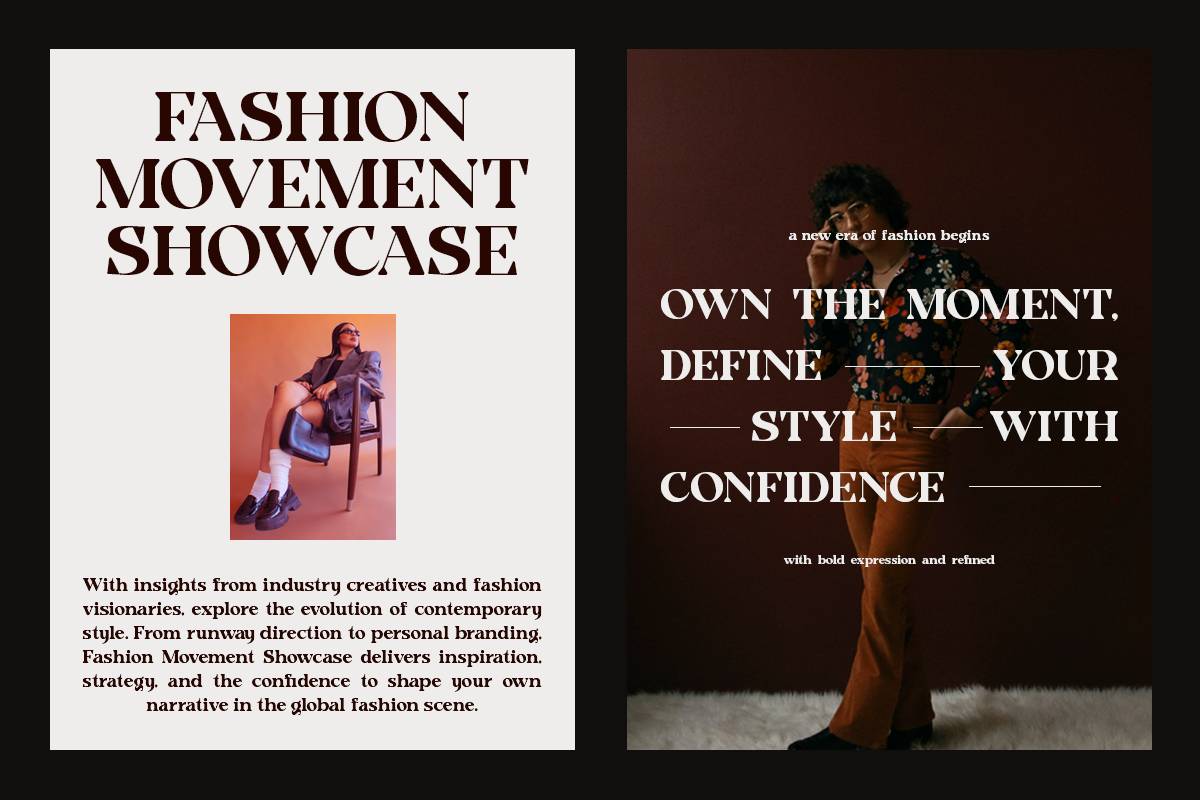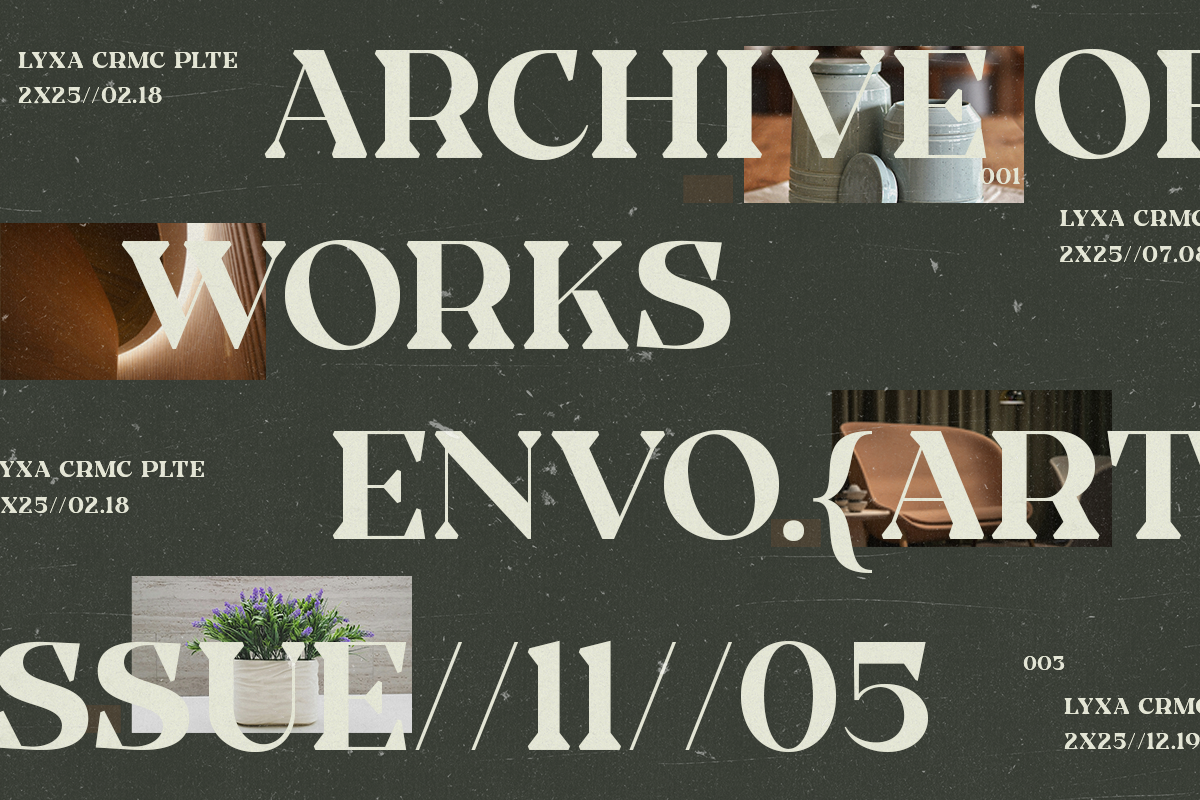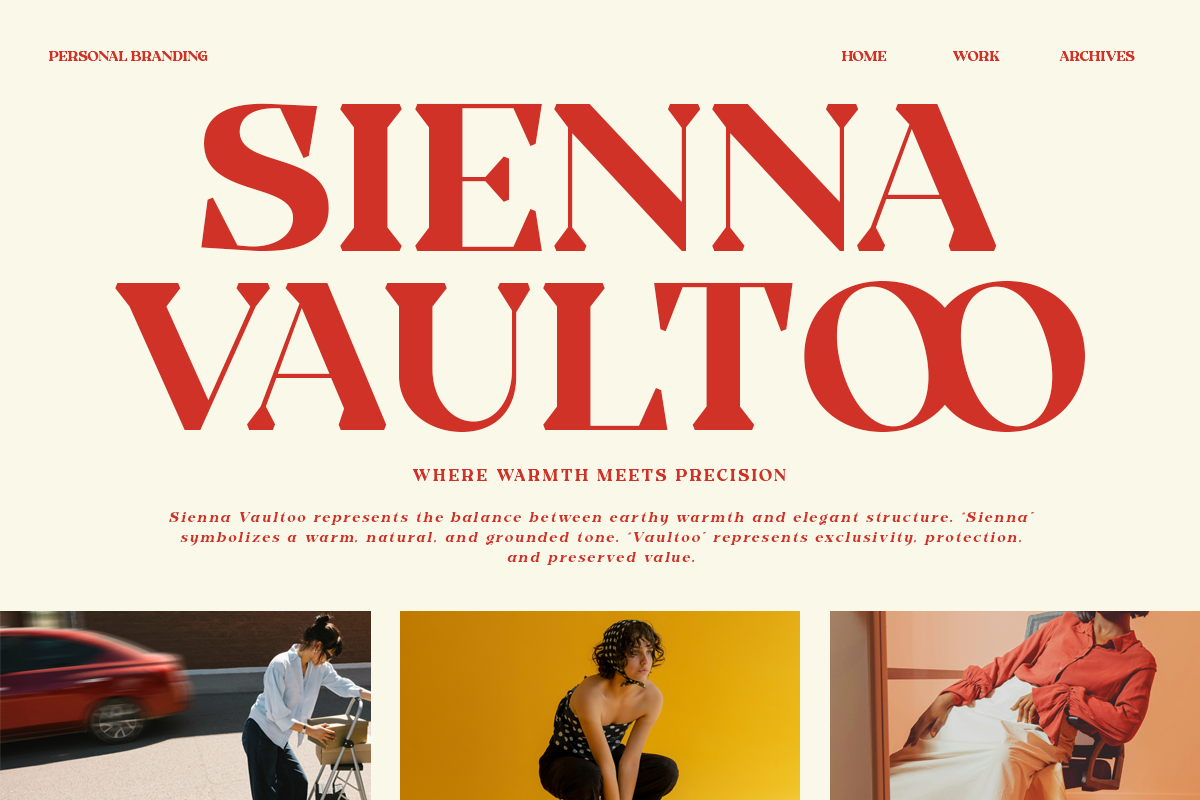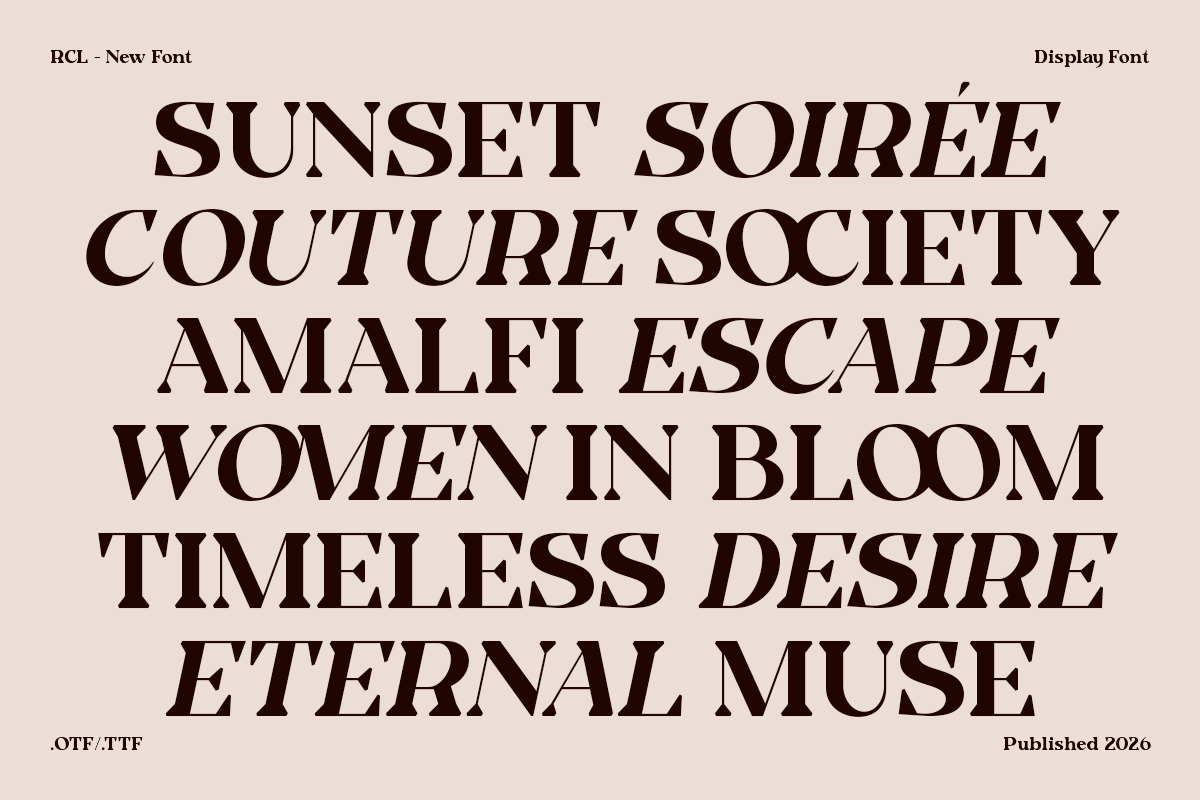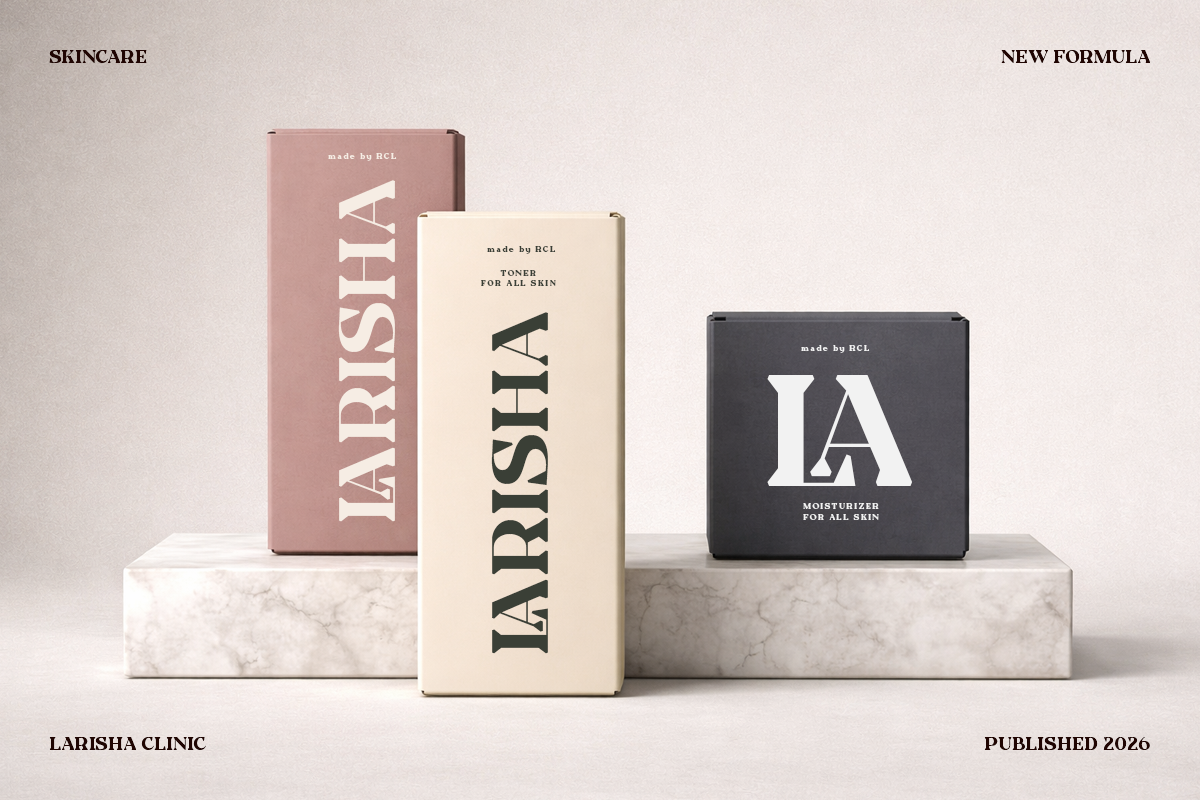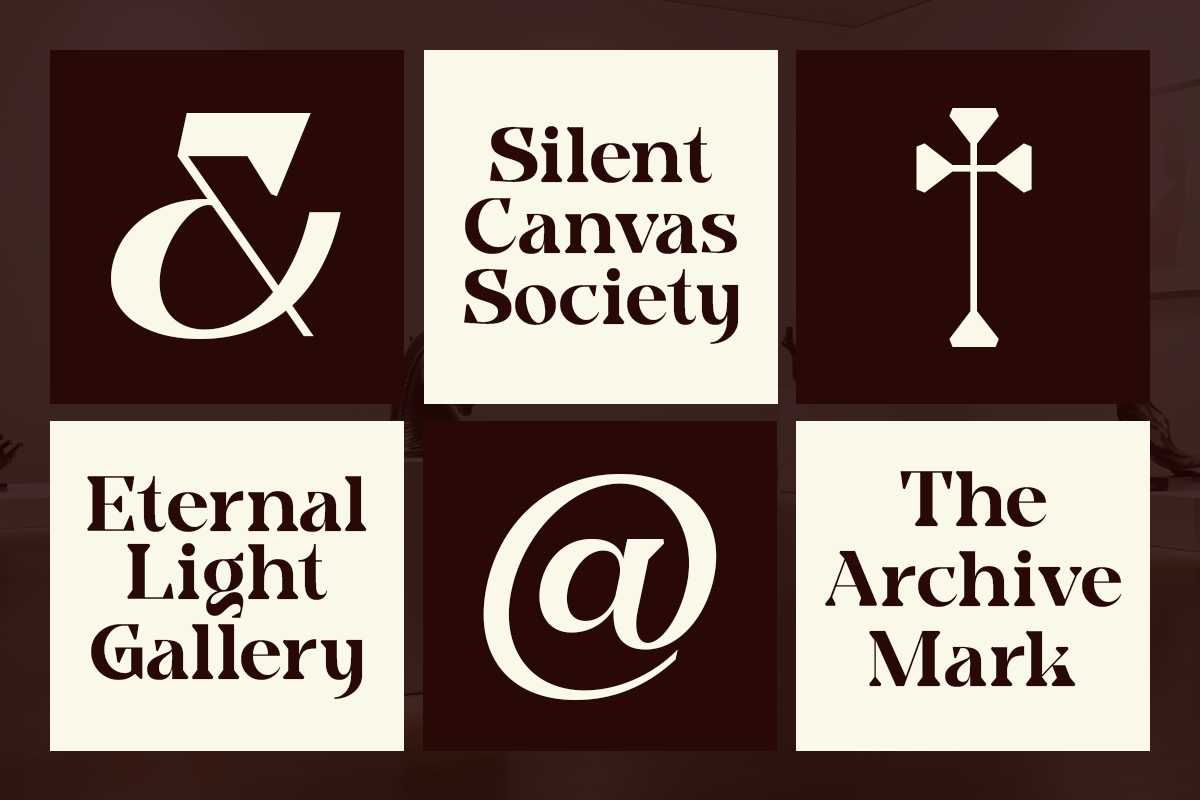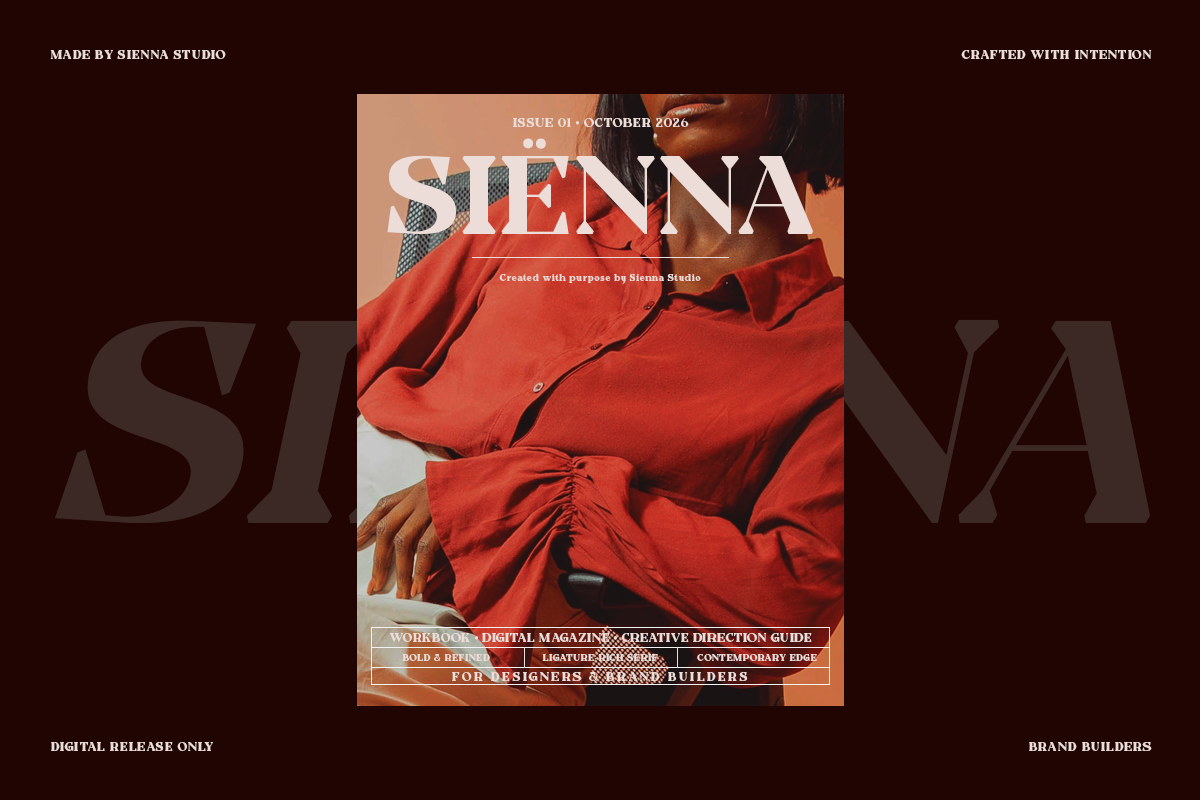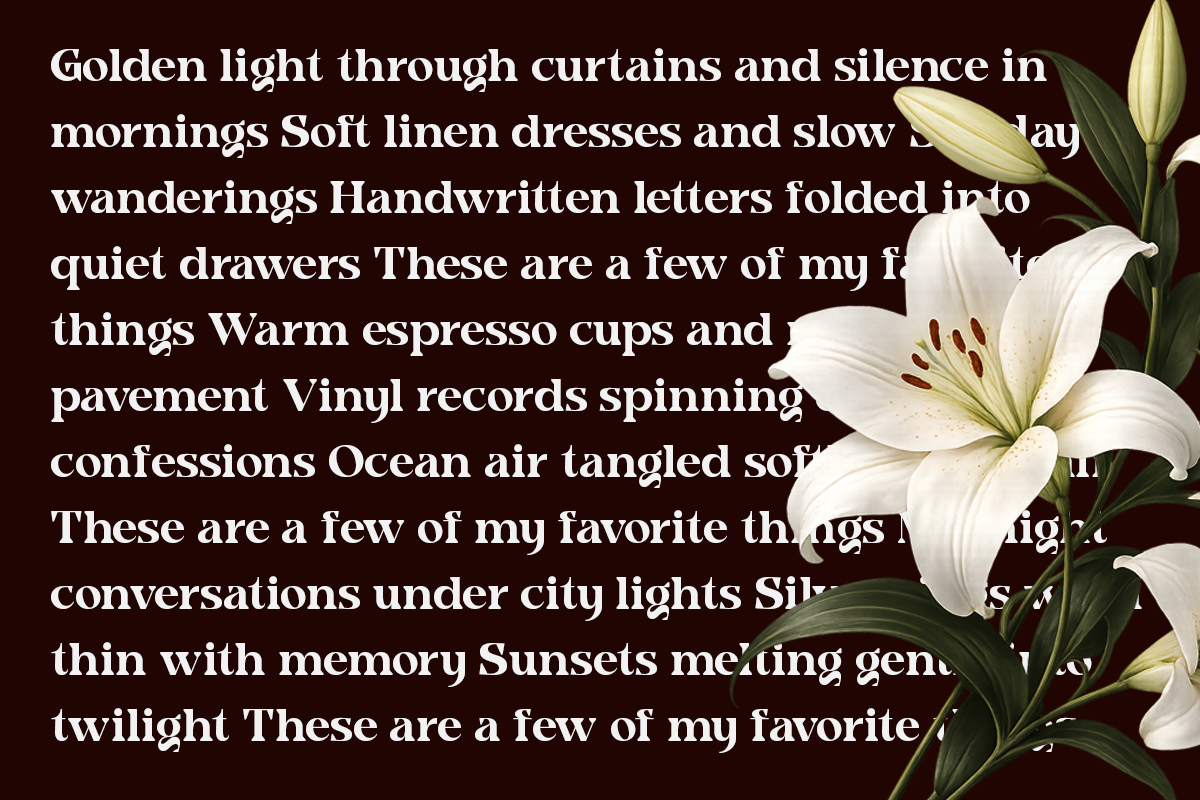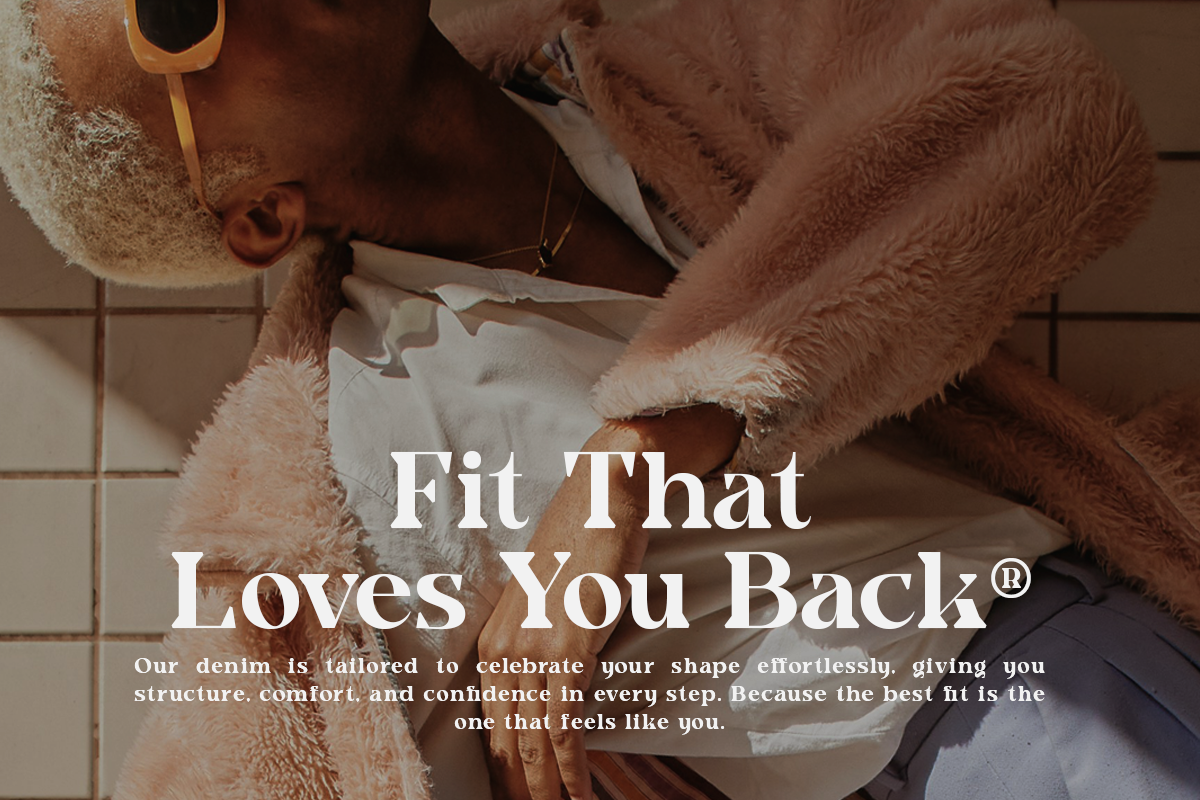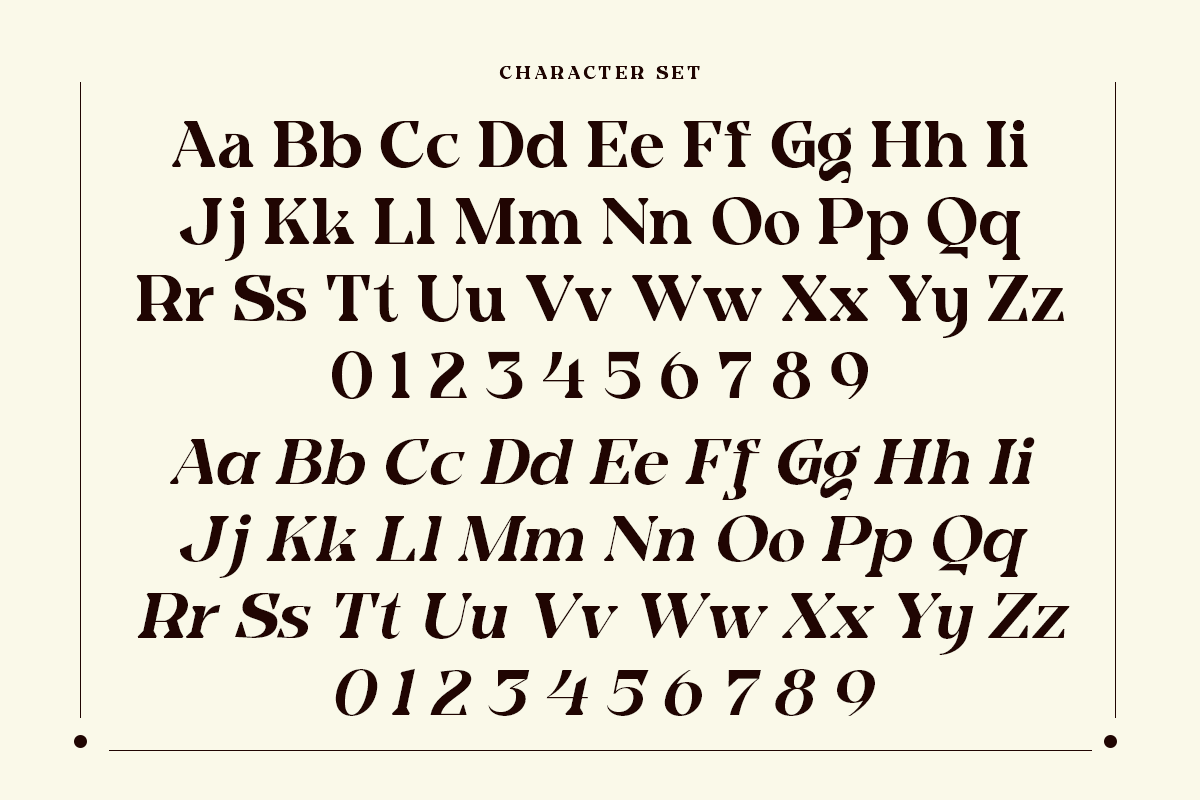
Kesiq – Elegant Modern Serif Display Font
Kesiq is a modern high-contrast serif display font designed to create powerful visual impact. Its sculpted curves, confident structure, and refined proportions make it ideal for luxury branding, magazine headlines, fashion editorials, and premium packaging. Carefully spaced and professionally kerned, Kesiq delivers elegance without sacrificing readability in large-scale compositions.
• Regular and Oblique
• Modern high-contrast serif design
• Uppercase & lowercase
• Multilingual support
• Professional kerning
Perfect For : Luxury branding, fashion editorials, magazine headlines, logo design, packaging, premium visual identities, and high-end digital campaigns.
Kesiq is a modern high-contrast serif display font featuring sculpted curves and refined proportions, available in Regular and Oblique styles. It includes uppercase and lowercase letters, multilingual support, professional kerning, and is offered in OTF, TTF, and WOFF formats.